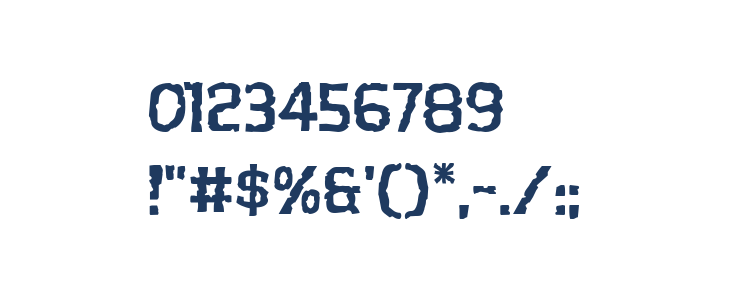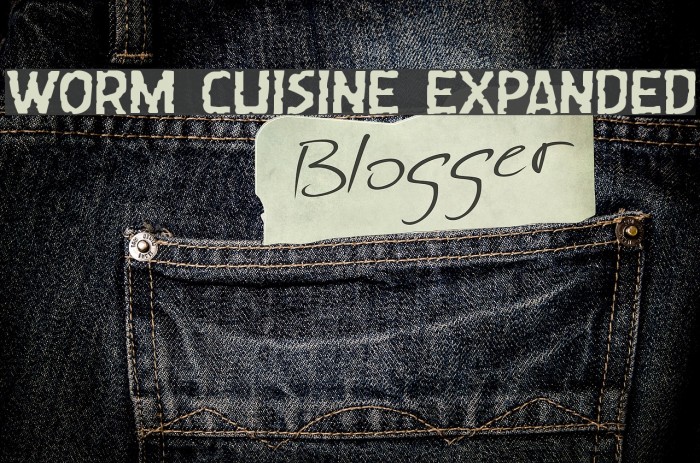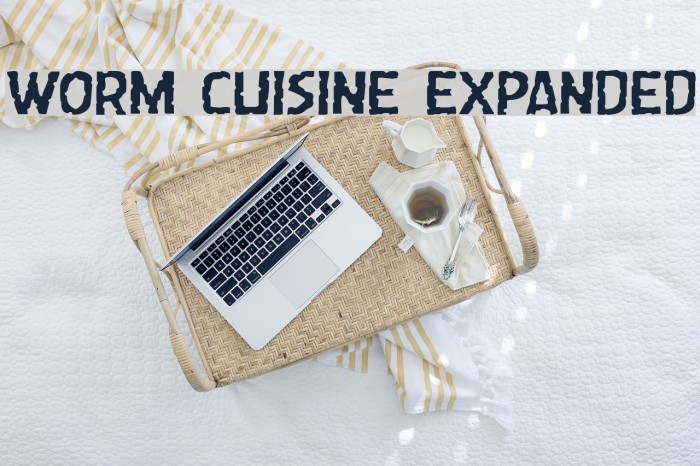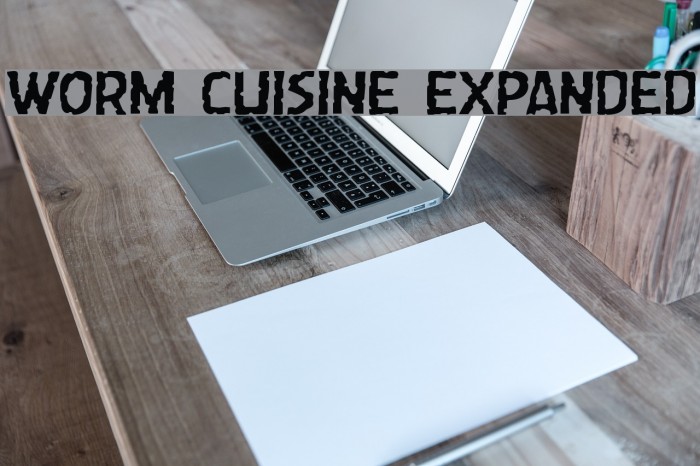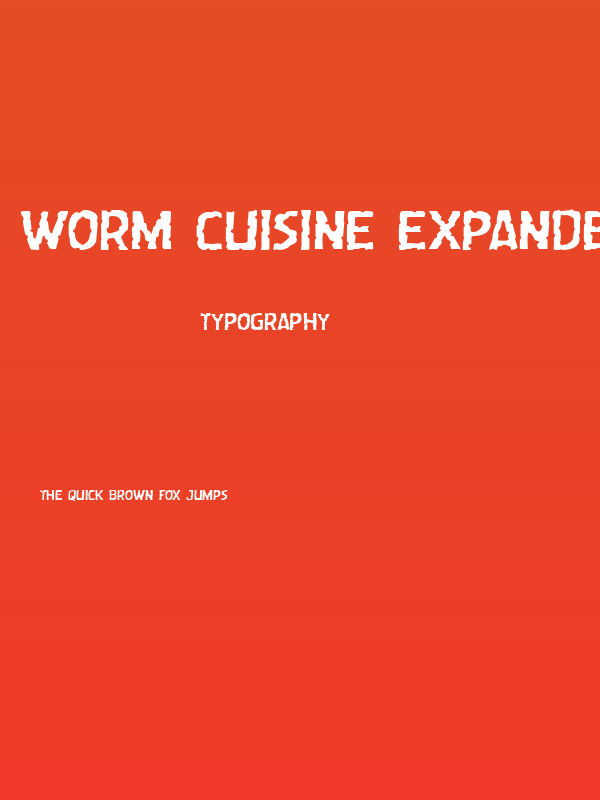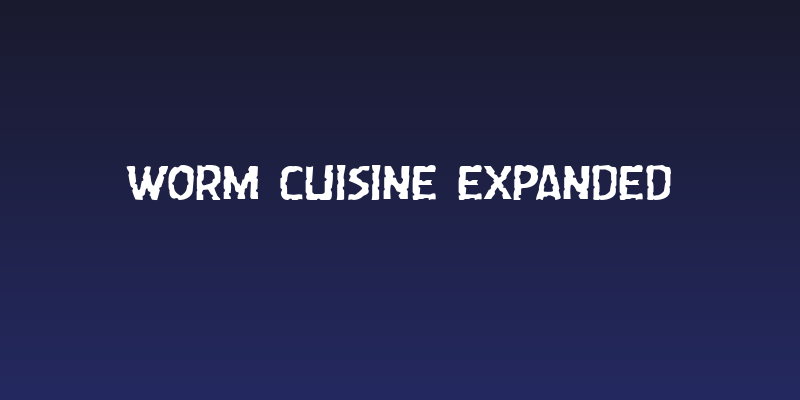
Worm Cuisine Expanded Font
Worm Cuisine Expanded Description
This font features a bold and rugged design with a distinctly organic and textured appearance. The characters have an irregular, hand-drawn quality, reminiscent of rough brush strokes or carved wood. The edges are uneven, giving it a unique and dynamic look that stands out. The uppercase and lowercase letters maintain a consistent style, with a playful yet edgy vibe. Numbers and special characters are equally bold, ensuring a cohesive look across all text elements. This font is ideal for projects that require a strong visual impact and a touch of creativity.
| Proposed Projects | Perfect for posters, album covers, branding, and creative projects that need a bold statement. |